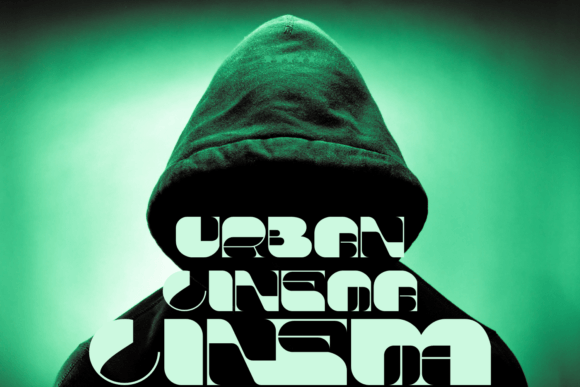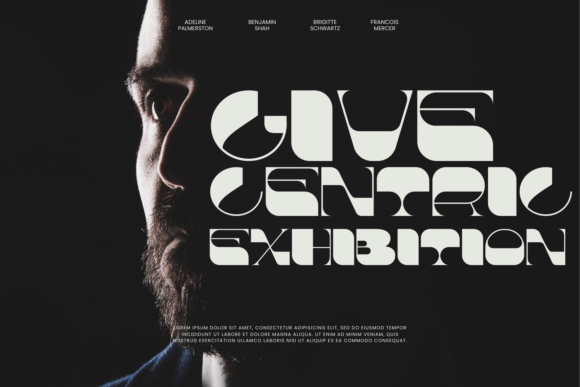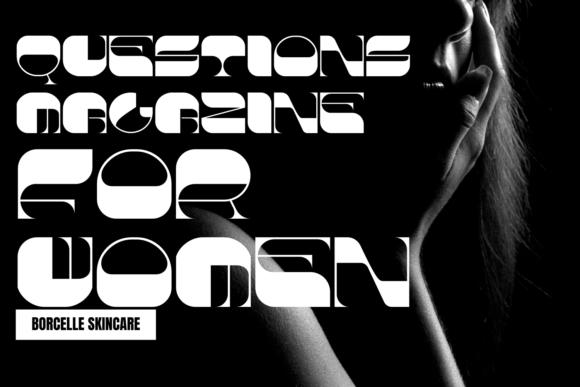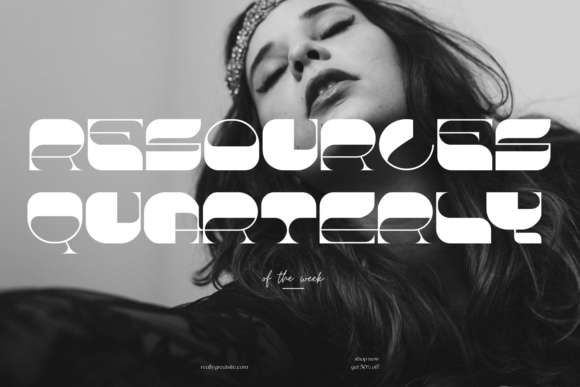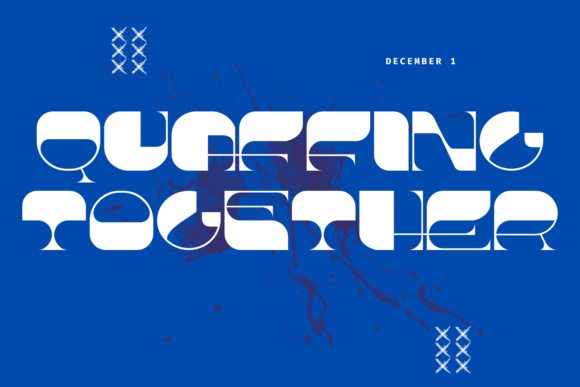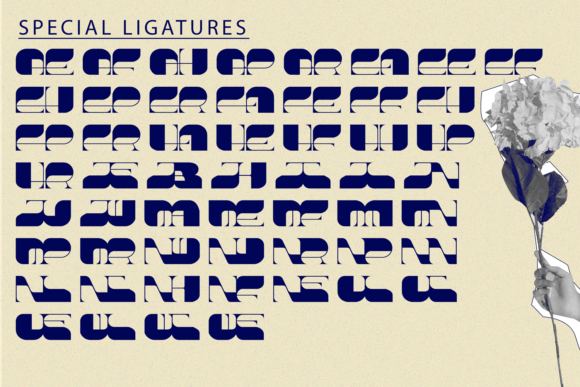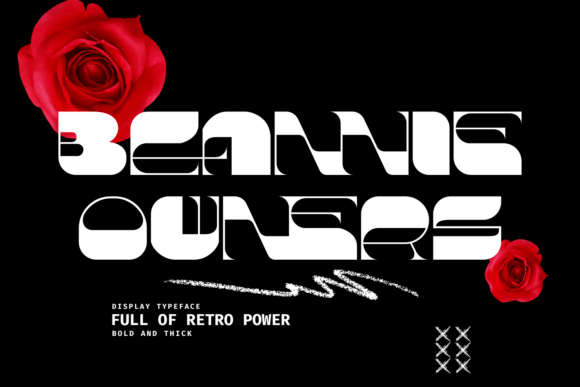
Introducing Beannie Owners Font: The Retro Display Typeface You Need
Are you a designer or crafter looking for a unique and eye-catching font to elevate your branding, web design projects, logos, packaging, and more? Look no further than Beannie Owners Font, a bold and quirky display typeface that’s full of retro power.
What is Beannie Owners Font?
Beannie Owners Font is a display typeface that’s designed to make a statement. With its bold and thick lines, this fun typeface is perfect for adding a touch of personality to your designs. Its quirky, groovy, and funky vibe is sure to capture the attention of your audience and leave a lasting impression.
Key Features of Beannie Owners Font
- Retro Power: Beannie Owners Font is inspired by the classic typography of the past, with a modern twist to make it fresh and exciting.
- Quirky and Funky: This font is not for the faint of heart! It’s bold, playful, and full of personality.
- Bold and Thick: The lines of Beannie Owners Font are strong and confident, making it perfect for headlines, titles, and other display text.
- Versatile: This font is suitable for a wide range of design projects, from branding and web design to logos, packaging, and more.
Why Choose Beannie Owners Font?
So why should you choose Beannie Owners Font for your next design project? Here are just a few reasons:
- Stand Out from the Crowd: With its unique and eye-catching design, Beannie Owners Font is sure to help your brand or project stand out from the competition.
- Add Personality to Your Designs: This font is full of personality and charm, making it perfect for designers and crafters who want to add a touch of whimsy to their work.
- High-Quality Design: This font is designed to high standards, with clean lines and smooth curves that will look great in any design.
How to Use Beannie Owners Font
Beannie Owners Font is a versatile typeface that can be used in a wide range of design projects. Here are just a few ideas to get you started:
- Branding: Use Beannie Owners Font to create bold and eye-catching logos, business cards, and other branding materials.
- Web Design: Add a touch of personality to your website with Beannie Owners Font, perfect for headings, titles, and other display text.
- Logos and Icons: This font is perfect for creating unique and memorable logos and icons that will help your brand stand out.
- Packaging: Use Beannie Owners Font to add a touch of whimsy to your packaging designs, making them more eye-catching and memorable.
In conclusion, Beannie Owners Font is a unique and eye-catching display typeface that’s perfect for designers and crafters who want to add a touch of personality to their work. With its bold and quirky design, this font is sure to capture the attention of your audience and leave a lasting impression. So why not give it a try and see the difference it can make in your next design project?